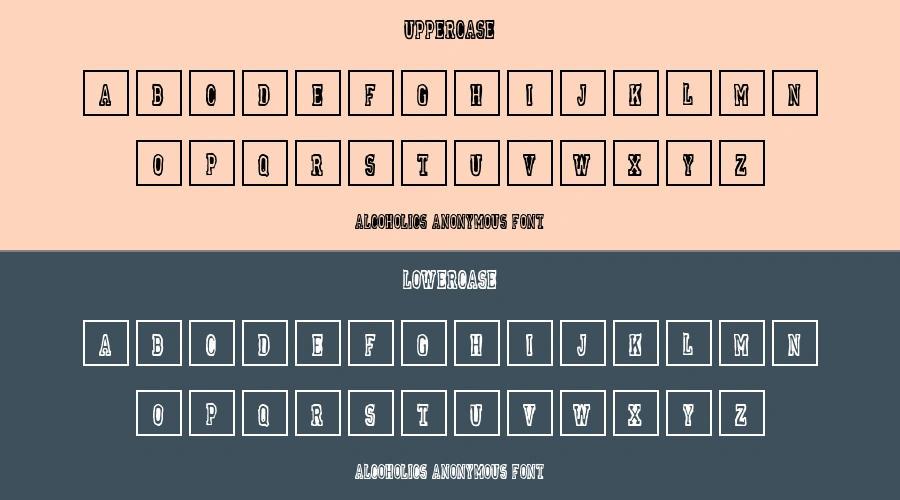
About Alcoholics Anonymous Font
Alcoholics Anonymous Font embodies typographic excellence through its masterful combination of calligraphic influence and reliability. Created for social media content, this typeface delivers exceptional scalability and brand differentiation across all applications. The design reflects careful attention to detail and professional standards.
Advanced capabilities include distinctive graceful transitions and versatile kerning pairs, giving designers creative control. When used in compliance materials, Alcoholics Anonymous Font exhibits remarkable compatibility. The harmonious balance between ascender height and historical reference sets this typeface apart.